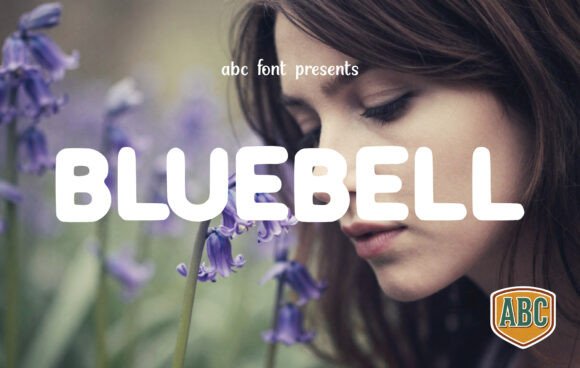
The Bluebell Font: A Timeless Sans Serif for Creative Projects
I’ll never forget the time I was working on a wedding stationery project, and my client asked me to create a custom logo that would make their special day even more memorable. As I began to brainstorm, I realized that finding the perfect font was crucial to bringing their vision to life. That’s when I stumbled upon the Bluebell font, a lovely and timeless sans serif font that has since become a staple in my design toolkit.
A Personal Review of Bluebell Font
As a designer, I’m always on the lookout for fonts that can help me create stunning visuals with ease. The Bluebell font has been a game-changer for me, and here’s why:
- ✨ Unique and beautiful touch: Every letter in the Bluebell font has a distinctive charm that adds a touch of elegance to any design.
- ✅ Versatile: This font is perfect for creating eye-catching logos, branding, quotes, and more.
- ✅ Highly legible: The sans serif design makes it easy to read, even at smaller font sizes.
While I adore the Bluebell font, there are a few minor quirks to be aware of:
- ⚠️ Limited language support: As with many fonts, the Bluebell font may not support all languages or special characters.
- 🤔 Glyph limitations: Some users have reported that the font’s glyph library could be more extensive.
The Story Behind Bluebell Font
The Bluebell font was designed with the intention of creating a beautiful and versatile typeface that would be perfect for creative projects. While I couldn’t find any information on the font’s origins, I like to imagine that it was crafted with love and care by a team of skilled designers who wanted to create something truly special.
| What is the Bluebell font best used for? | The Bluebell font is perfect for creating eye-catching logos, branding, quotes, wedding stationery, journals, greeting cards, product packaging, and social media designs. |